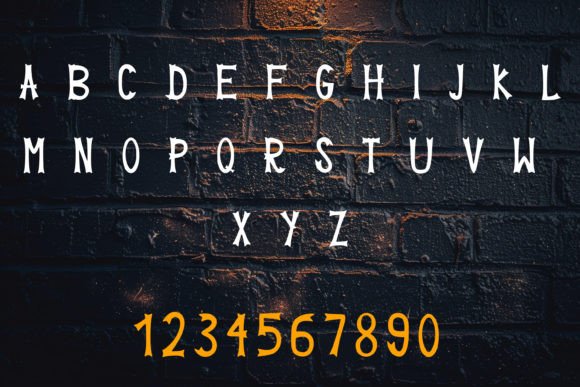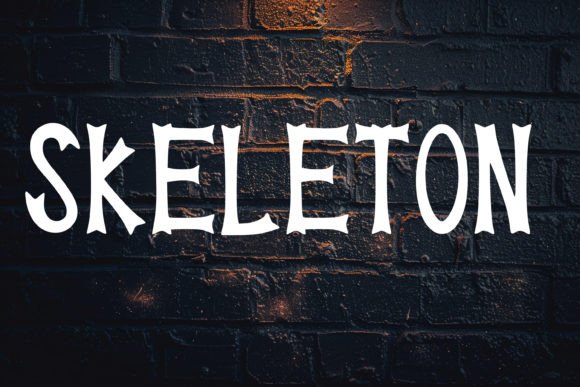
Unleash the Spirit of Halloween with the Spoctacular Halloween Skeleton Font
As the spookiest time of the year approaches, designers and crafters are on the lookout for the perfect font to add a touch of eerie elegance to their creations. Look no further than the Halloween Skeleton Font, a lively and spirited typeface designed to infuse your projects with a playful and delightful feel. In this article, we’ll dive into the world of this fantastic font, exploring its features, applications, and the creative possibilities it offers.
A Font that’s to Die For
The Halloween Skeleton Font is a unique and eye-catching typeface that’s sure to make your designs stand out from the crowd. With its bold, playful, and slightly spooky vibe, this font is perfect for creating a wide range of projects, from book covers and posters to packaging, merchandise, and logotypes. Whether you’re a designer, crafter, or DIY enthusiast, this font is sure to add a touch of Halloween magic to your creations.
Key Features of the Halloween Skeleton Font
- Unique and playful design: The Halloween Skeleton Font features a one-of-a-kind design that’s sure to grab attention. Its bold lines, quirky curves, and skeletal details make it the perfect choice for Halloween-themed projects.
- Highly versatile: This font is incredibly versatile, making it suitable for a wide range of applications, from book covers and posters to packaging, merchandise, and logotypes.
- Scalable: This font is highly scalable, ensuring that it looks great in any size or resolution.
Applications of the Halloween Skeleton Font
The Halloween Skeleton Font is perfect for a wide range of projects, including:
- Book covers: Add a touch of spooky elegance to your book covers with this unique and eye-catching font.
- Posters: Create dynamic and attention-grabbing posters that will stand out from the crowd.
- Packaging: Add a playful and festive touch to your packaging with this fun and quirky font.
- Merchandise: Create stylish and eye-catching merchandise, such as t-shirts, mugs, and tote bags.
- Logotypes: Use the Halloween Skeleton Font to create distinctive and memorable logotypes that will help your brand stand out.
Tips for Using the Halloween Skeleton Font
To get the most out of the Halloween Skeleton Font, here are a few tips to keep in mind:
- Experiment with different colors: This font looks great in a range of colors, so don’t be afraid to experiment and find the perfect hue for your project.
- Mix and match with other fonts: The Halloween Skeleton Font pairs well with a range of other fonts, so feel free to get creative and mix and match to create a unique look.
- Use it sparingly: While the Halloween Skeleton Font is perfect for headlines and titles, it can be overwhelming if used too much. Use it sparingly to create a balanced look.